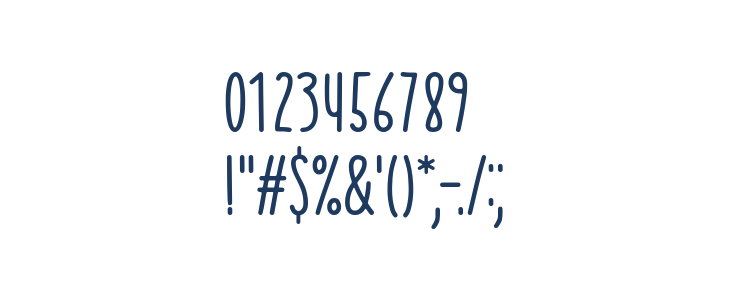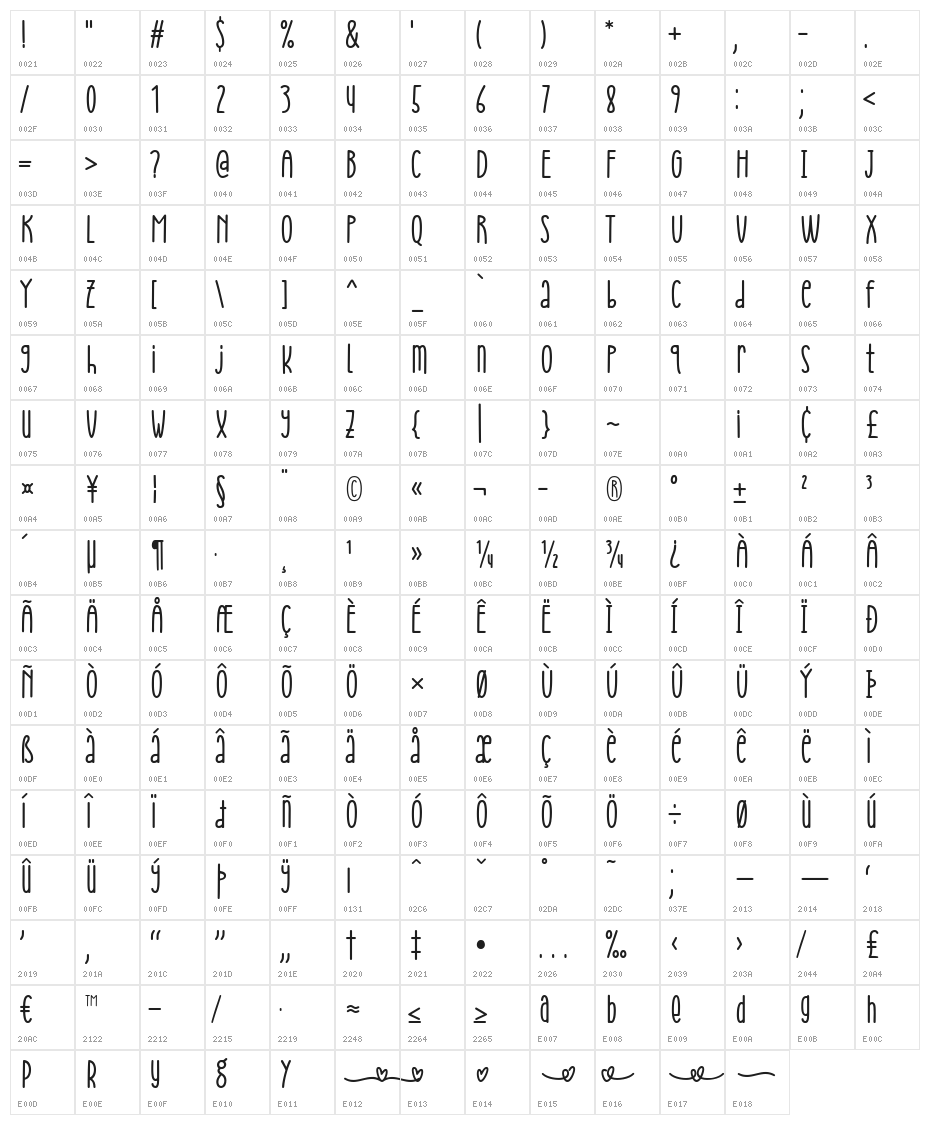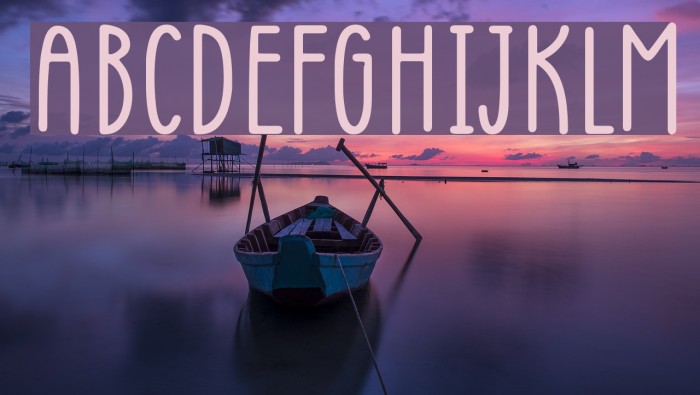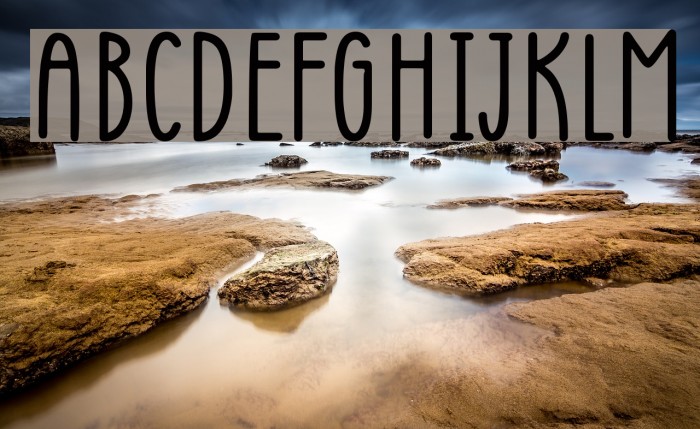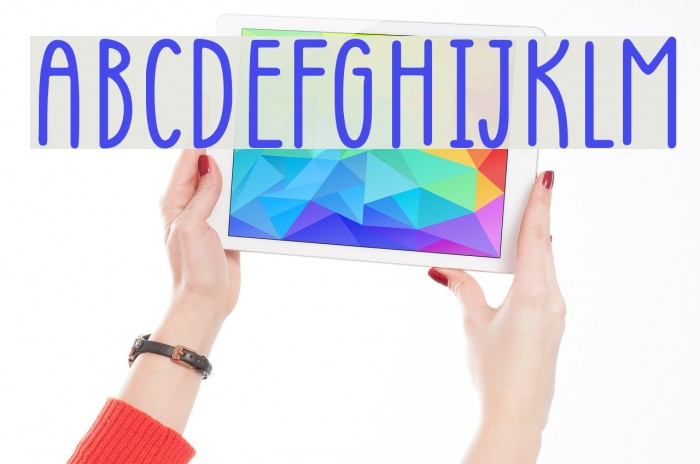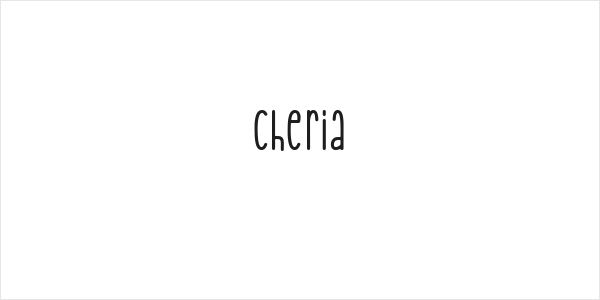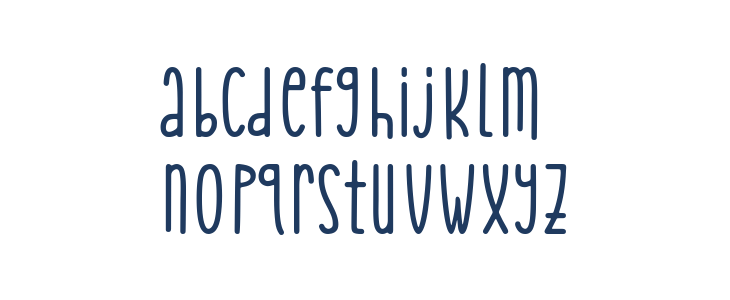
Cheria Font
Cheria Description
This font features a playful and rounded design with a hand-drawn aesthetic. The characters are tall and narrow, giving them a unique, elongated appearance. The strokes are consistent in width, contributing to a clean and modern look. The uppercase and lowercase letters maintain a cohesive style, with slight variations that add to the font's charm. Numbers and special characters are designed to match the overall playful theme, making this font suitable for creative and informal projects.
| Proposed Projects | Ideal for children's books, playful branding, greeting cards, and creative posters. |